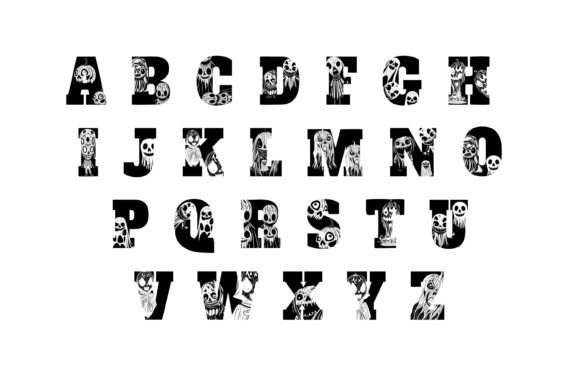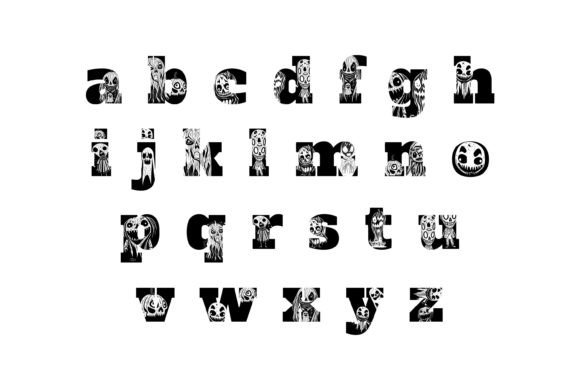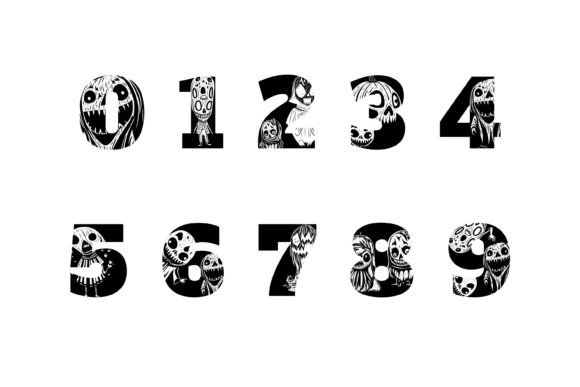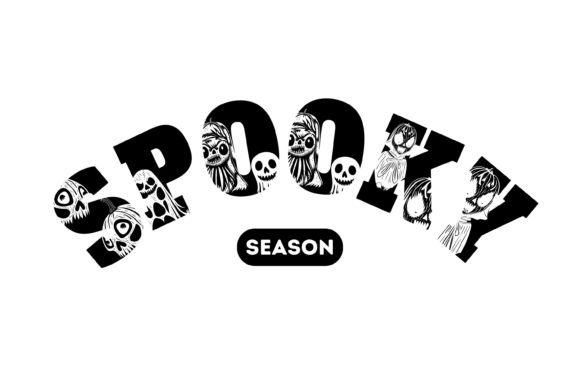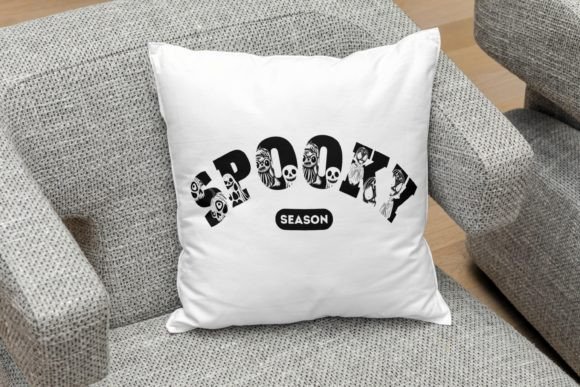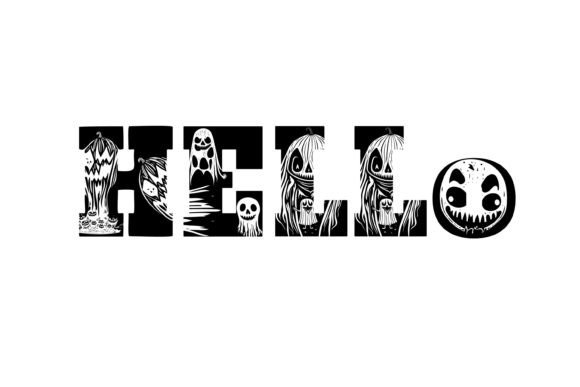
Unleash the Spooky Charm with Ghostly Whispers Font
As the spookiest time of the year approaches, designers and crafters are on the lookout for unique and eerie elements to add to their Halloween-themed projects. If you’re looking to create spine-tingling invitations, ghostly banners, or mysterious headlines, look no further than the “Ghostly Whispers” font. This chilling and captivating typeface is adorned with a creepy Halloween ghost pattern, perfect for infusing your creations with an aura of otherworldly charm.
The Haunting Beauty of Ghostly Whispers
The “Ghostly Whispers” font is a one-of-a-kind typeface that combines a classic font style with a haunting ghostly pattern. The ghostly design elements are intricately woven into the letters, creating a mesmerizing effect that’s sure to send shivers down the spine. The font’s unique design makes it perfect for a variety of Halloween-themed projects, from party invitations to spooky stories and haunted house advertisements.
Whether you’re a professional designer or a crafty DIY enthusiast, the “Ghostly Whispers” font is an excellent addition to your font collection. The font is easy to use and can be incorporated into a range of design projects, including:
- Halloween party invitations and flyers
- Ghostly banners and signs
- Mysterious headlines and titles
- Spine-tingling stories and poems
- Haunted house advertisements and brochures
Key Features of Ghostly Whispers Font
The “Ghostly Whispers” font comes with a range of features that make it perfect for designers and crafters. Some of the key features include:
- Unique and haunting ghostly design elements
- Easy to use and incorporate into design projects
- Perfect for Halloween-themed projects
Tips for Using Ghostly Whispers Font
To get the most out of the “Ghostly Whispers” font, here are some tips for using it in your design projects:
- Experiment with different font sizes and colors to create a unique effect
- Combine the font with other spooky design elements, such as bats, spiders, and jack-o-lanterns
- Use the font to create a sense of mystery and intrigue
- Pair the font with a bold and vibrant color scheme to create a striking contrast
Get Ready to Cast a Spell with Ghostly Whispers Font
The “Ghostly Whispers” font is a must-have for designers and crafters looking to create spooky and captivating Halloween-themed projects. With its unique and haunting design elements, this font is perfect for adding an eerie touch to your creations. Whether you’re designing invitations, banners, or headlines, this font is sure to infuse your projects with an aura of otherworldly charm. So don’t miss out on this opportunity to unleash the spooky charm with the “Ghostly Whispers” font.